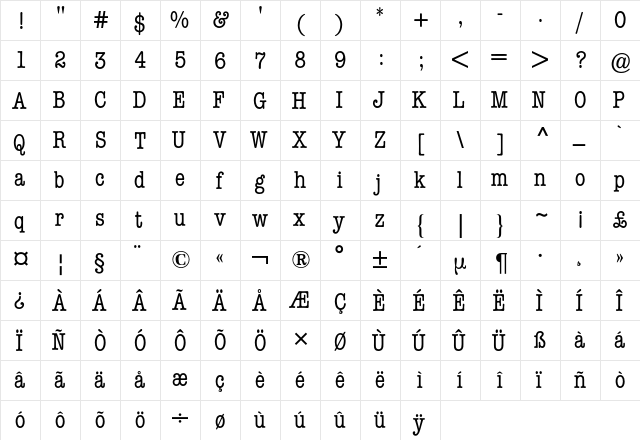
AmericanTypewriterCondensedBQ Regular Font Preview
AmericanTypewriterCondensedBQ Regular
Design Context for AmericanTypewriterCondensedBQ Typeface
AmericanTypewriterCondensedBQ uses fixed-width spacing throughout, giving it the structured, systematic character associated with coding environments and technical documentation.
Pro Tip: Use AmericanTypewriterCondensedBQ with slightly increased line-height for extended reading — fixed-width spacing can feel dense in longer passages without extra breathing room.